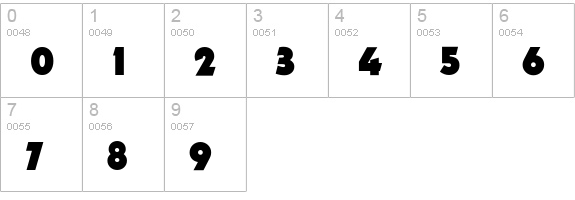
CgDynamo Font Details
CgDynamo is a versatile and modern font that exudes energy and dynamism. Its sleek lines and bold curves make it perfect for adding a touch of excitement to any design project. Whether you're working on a poster, logo, or website, CgDynamo will make your text pop and capture the attention of your audience. The best part about CgDynamo? It's completely free! You can easily download this fantastic font at FontsMarket.com and start using it in your projects right away. Don't miss out on the opportunity to enhance your designs with this eye-catching and stylish typeface. Download CgDynamo today and let your creativity soar!